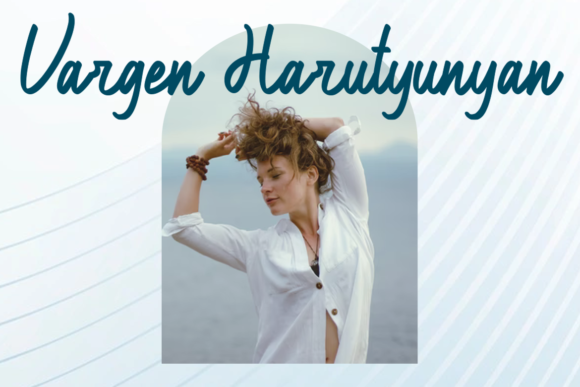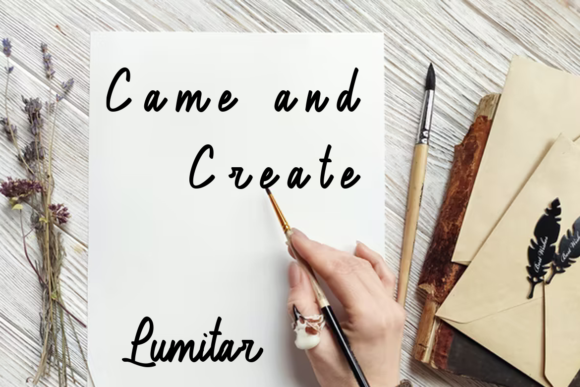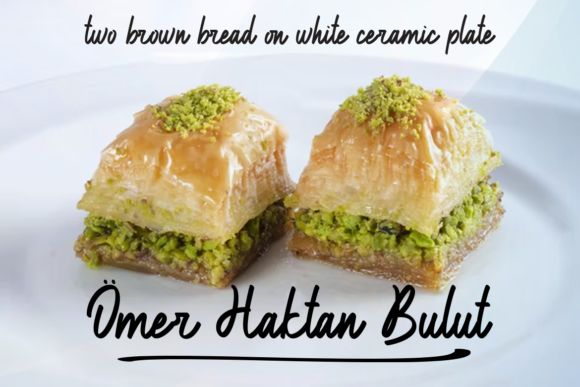
Introduction to Respects Font
Do you remember the moment when you stumbled upon that perfect design resource that took your creative project to the next level? For designers, finding the right font can be a game-changer. It’s the difference between a good design and a great one. And that’s exactly what we’re going to explore today – the Respects Font.
This sweet and cute handwritten font is more than just a pretty face. It’s a versatile design tool that can elevate your quotes, notes, greeting cards, packaging, and standout branding. With its high-quality design and transparent background, the Respects Font is a valuable asset for any creative project. Whether you’re a seasoned designer or just starting out, this free download is sure to make a lasting impression.
Key Features of Respects Font
- High-quality design resource suitable for various creative projects
- Comes with a transparent background, allowing for easy customization
- Includes a range of font styles and weights to suit different design needs
- Unique characteristic: A modern and elegant design with a subtle touch of sophistication
Honest Review: Respects Font
I recently had the chance to work with the Respects Font on a creative project, and I must say, I was quite impressed. As a designer, I’m always on the lookout for high-quality design resources, and Respects Font definitely delivers.
Here are some of the things that work well with Respects Font: ✨
- The font has a transparent background, which makes it easy to use in a variety of creative applications.
- The font is highly customizable, allowing me to tailor it to the specific needs of my project.
However, I did encounter a few limitations with Respects Font: ⚠️
- The font is a bit limited in its font size options, which can make it difficult to use in certain situations.
- The font could benefit from more language support, as it only supports a limited number of languages.
Overall, I’m impressed with Respects Font and would definitely consider using it again in the future. While it has its limitations, its high quality and customization options make it a valuable addition to any designer’s toolkit.
The Respects Font is a high-quality, free download design resource perfect for creative projects requiring a unique touch. Its transparent background makes it easily customizable to fit any design aesthetic.
To get the most out of the Respects Font, consider the following:
- Combine the Respects Font with other design elements for a cohesive look.
- Use the font in conjunction with a transparent background to create a striking design.
The Respects Font is ideal for:
- Branding and logo design.
- Business cards and stationery.
- Infographics and data visualization.
- Web design and development.
Alternatives to Respects Font
Montserrat is a popular sans-serif font ideal for creative projects that require a clean and modern look. It features a transparent background, making it perfect for designs with bold colors. Montserrat is a high-quality design resource that can be used for a variety of purposes, including logos, headings, and body text.
Montserrat is similar to Respects Font in terms of its modern and sleek appearance, but it has a more geometric and urban feel. It is available for free download and is widely used in the design community.
Open Sans is a versatile sans-serif font that is highly suitable for creative projects that require a friendly and approachable tone. It features a clean and simple design with a transparent background, making it perfect for designs with bold colors. Open Sans is a high-quality design resource that can be used for a variety of purposes, including logos, headings, and body text.
Open Sans is similar to Respects Font in terms of its clean and simple appearance, but it has a more friendly and approachable feel. It is available for free download and is widely used in the design community.
Lato is a modern sans-serif font that is ideal for creative projects that require a clean and sophisticated look. It features a transparent background, making it perfect for designs with bold colors. Lato is a high-quality design resource that can be used for a variety of purposes, including logos, headings, and body text.